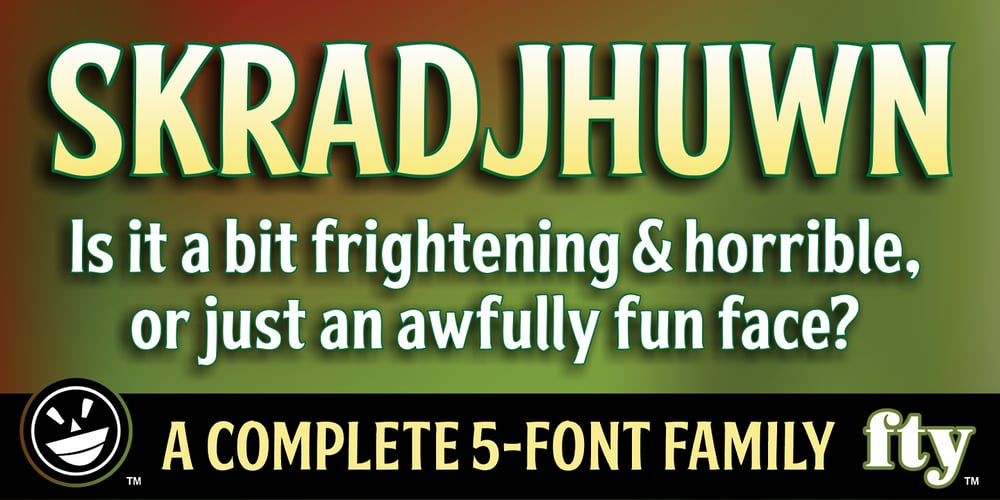
FTY SKRADJHUWN Font Family was designed by Michael Gene Adkins and published by The Fontry. FTY SKRADJHUWN contains 7 styles and family package options. SKRADJHUWN is a font that refuses to be classified. It bounces casually along its baseline with the weight of a display face, showing off hints of fun serifs and curvey strokes. Yet it’s visually strong and a great reader, and it’s also a family of five faces. The subtle variety of weights allows the user to pick just the right amount of heavy or light for maximum visibility at any size. SKRADJHUWN, in base-form, will work just about anywhere you want to use it. Except maybe those very small point sizes that tend to chew a regular font to pieces. For those delicate moments, drop down to the thinner strokes of SKRADJHUWN 001 and 002. From there, with the 003 and 004 option, the strokes increase dramatically, allowing the user to avoid those pixelated defects that arise when letter size starts to clash with the final viewing size. SKRADJHUWN is more than just a fun face. This family has the right stance and weights to serve multiple design needs. And it doesn’t hurt that OpenType replacement features come standard, along with extended Central European language support. SKRADJHUWN even includes some nice character options for our German-speaking customers–the uppercase Eszett and an alternative to the standard lowercase eszett.